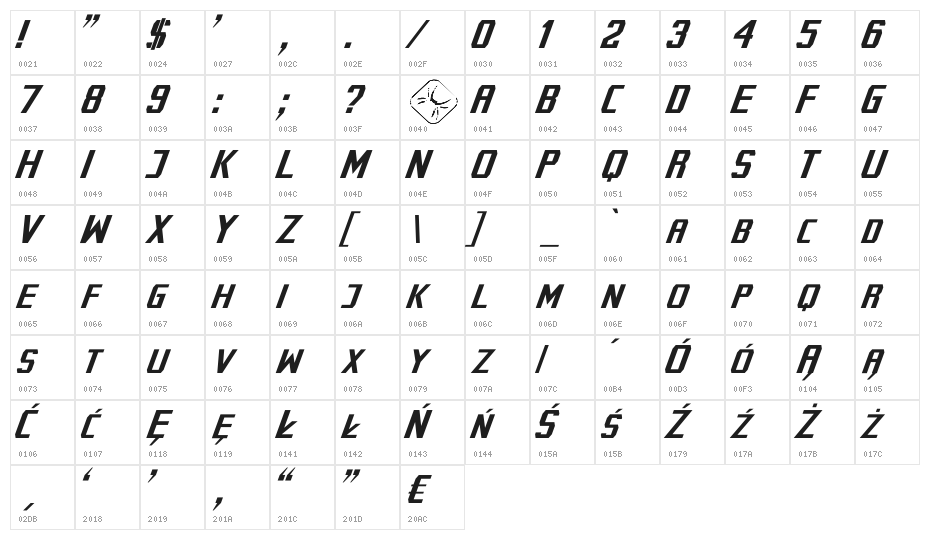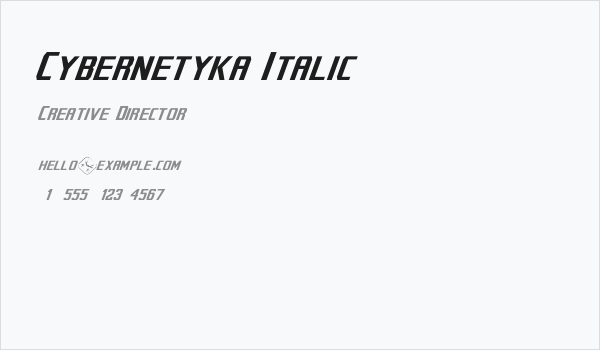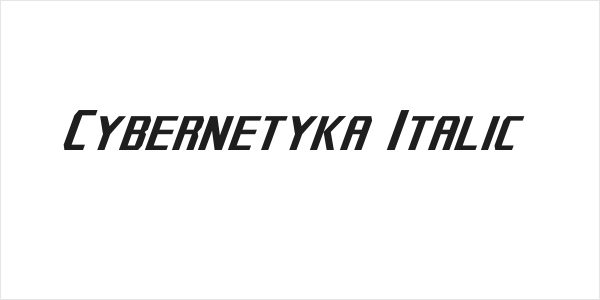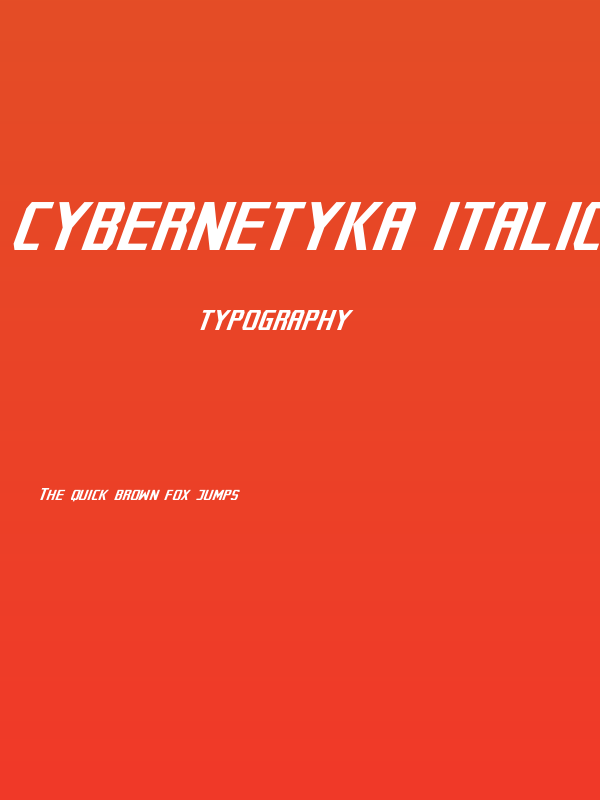
Cybernetyka Italic Font
Cybernetyka Italic Description
This font exhibits a futuristic and dynamic style, characterized by its italicized and angular letterforms. The sharp edges and slanted orientation give it a sense of motion and speed, making it ideal for tech-oriented designs. The uppercase letters are bold and prominent, while the numbers maintain a consistent style, ensuring readability. The special characters are designed to match the overall aesthetic, adding to its versatility. This font is well-suited for projects that require a modern and edgy look, such as technology branding, sci-fi themes, or video game titles.
| Proposed Projects | Ideal for technology branding, sci-fi themes, video game titles, and modern advertising. |